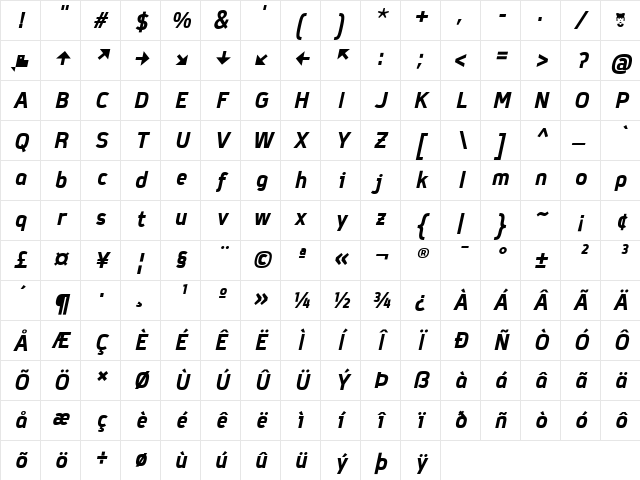
Garota Sans Bold Italic
Foundry: deFharo
Designer: Fernando Haro
Design Context for Garota Sans
Garota Sans is a composed and adaptable typeface that performs quietly and consistently across a wide range of design contexts. The slanted form adds forward momentum and visual energy. Its bold stroke weight gives it real presence on the page.
Pro Tip: Use Garota Sans for emphasis, pull quotes, and subheadings where its slanted energy can add rhythm to the layout.